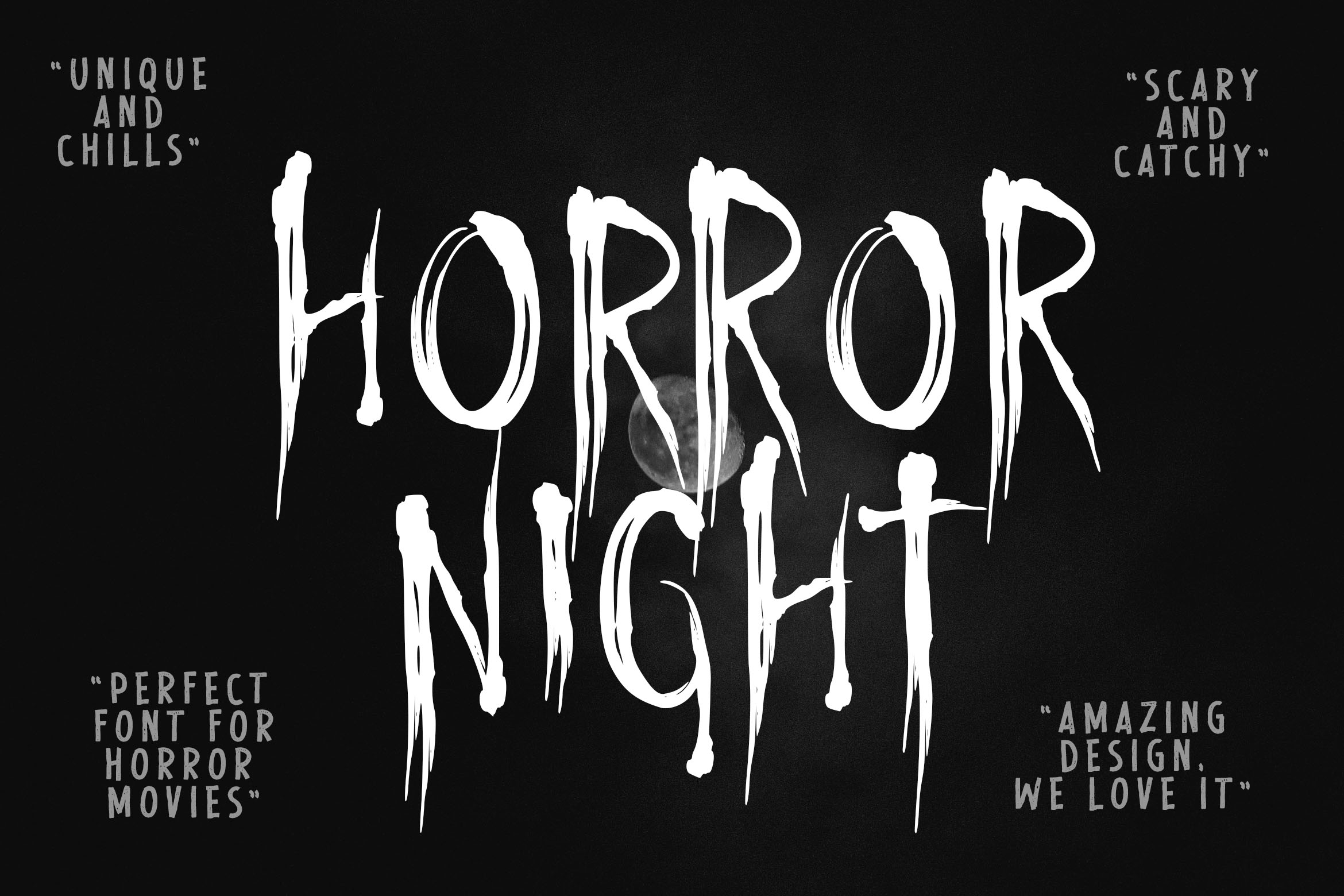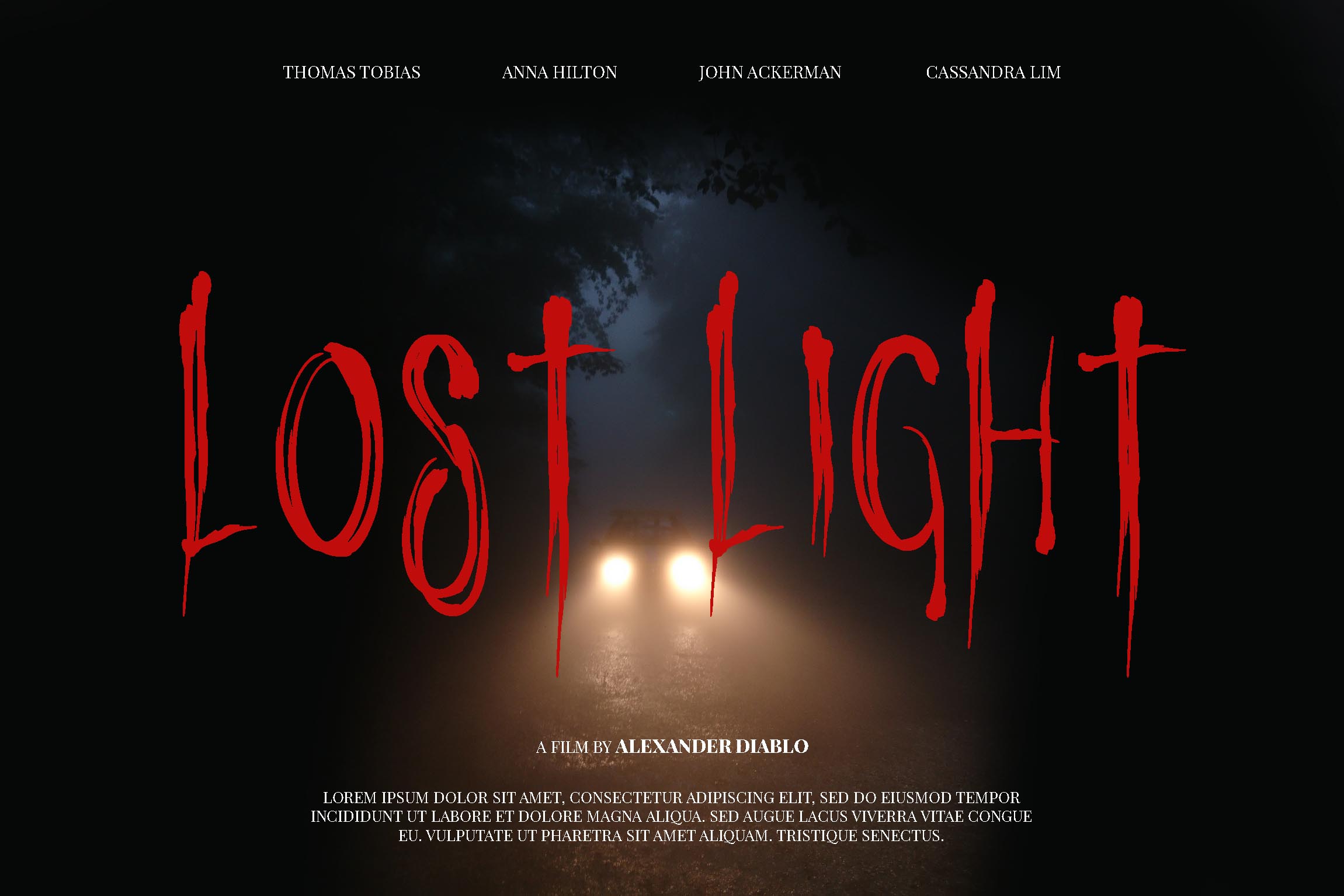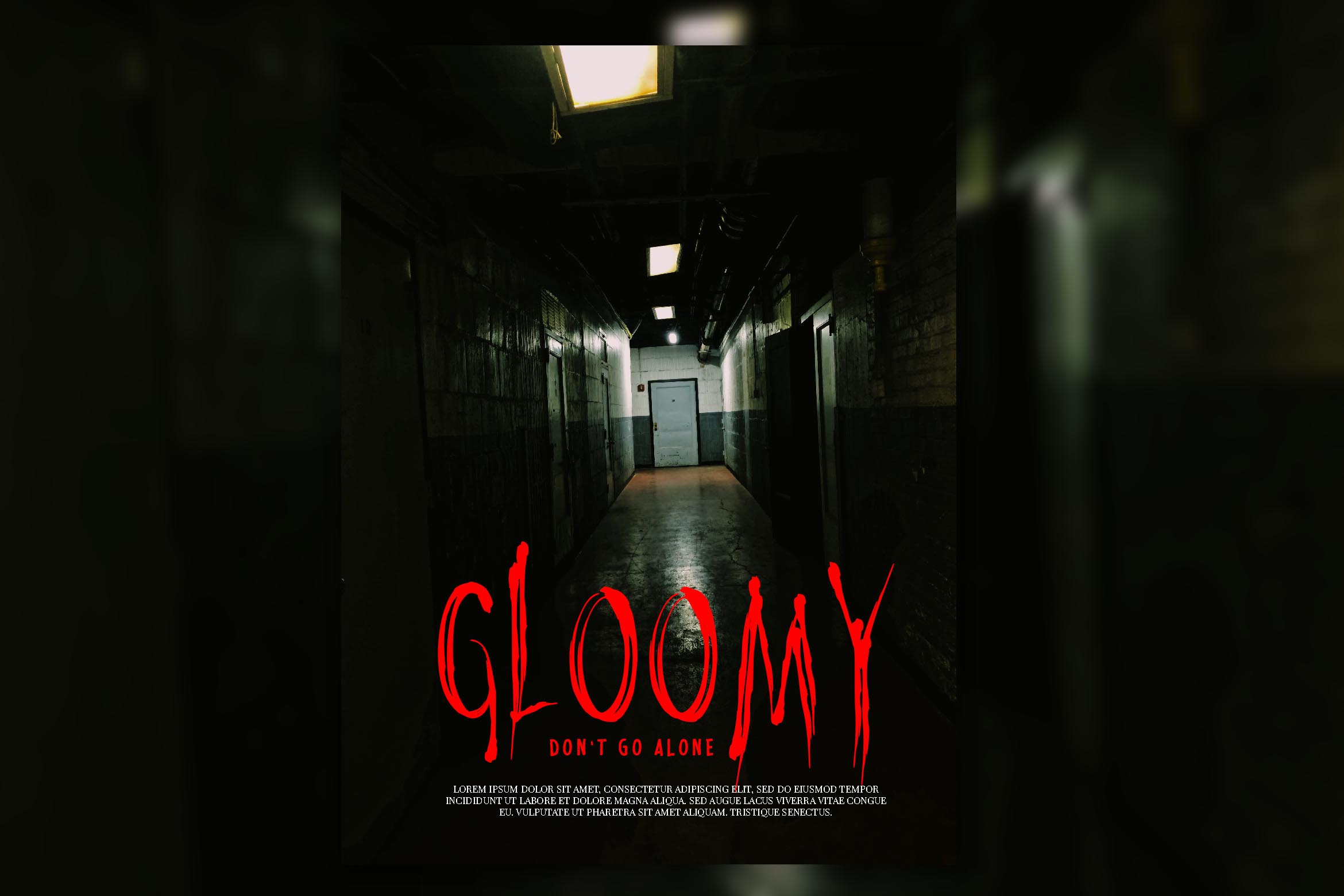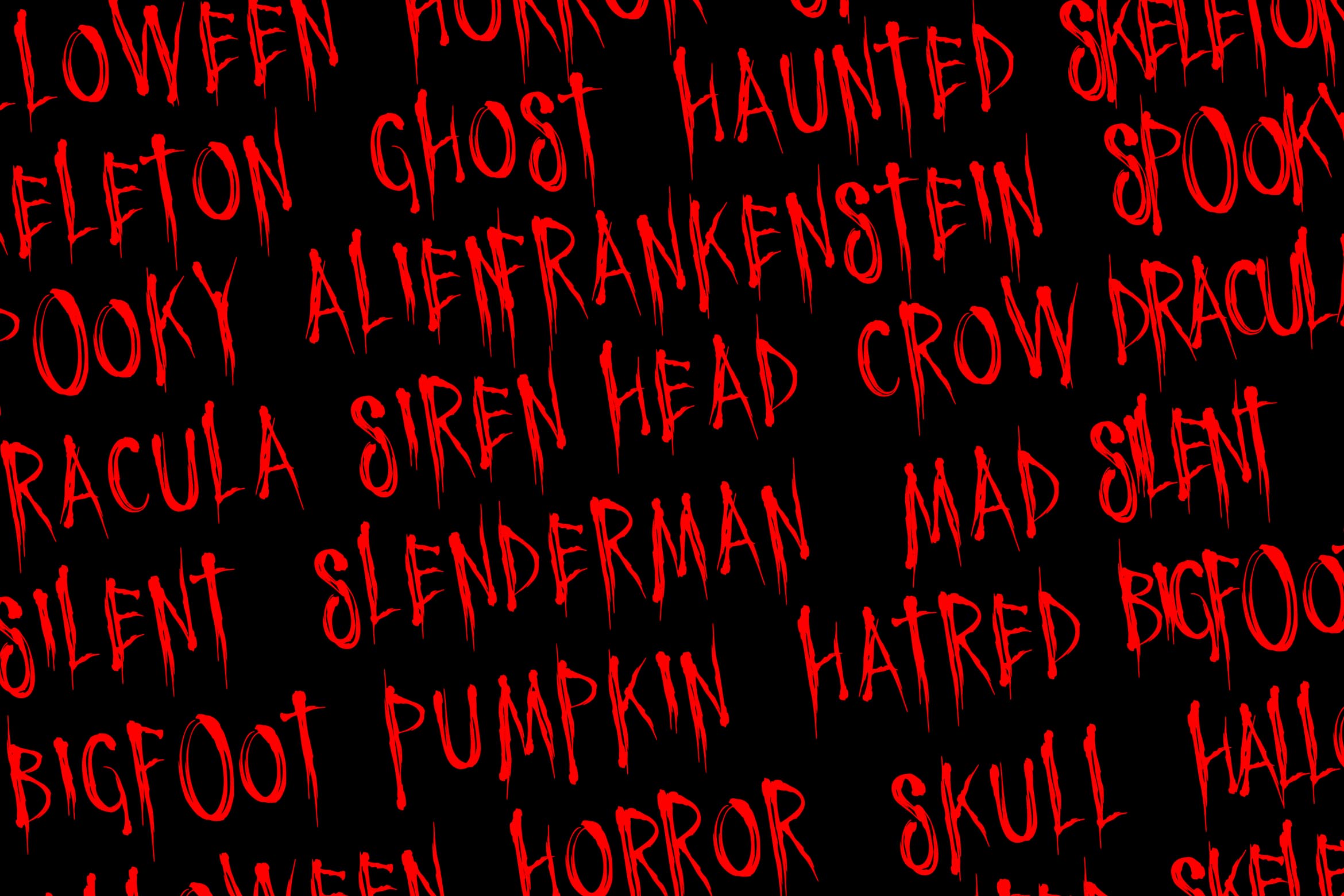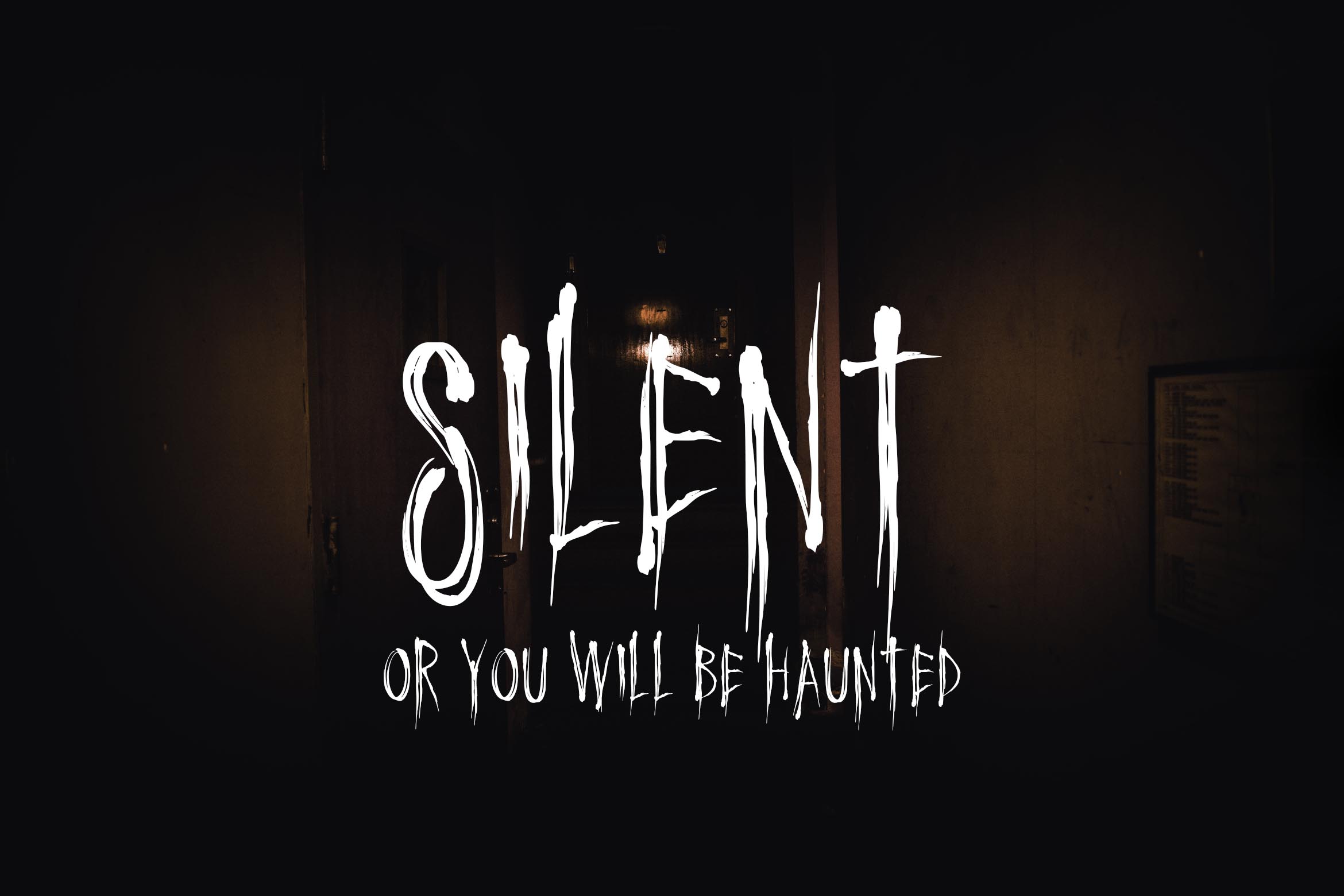
Horror Night
Horror Night is awesome horror font. Comes with Uppercase and lowercase characters. This font is great for any horror design purposes. Horror Night is awesome for your logo, your band, for merchandise, for clothing, and movie title/poster